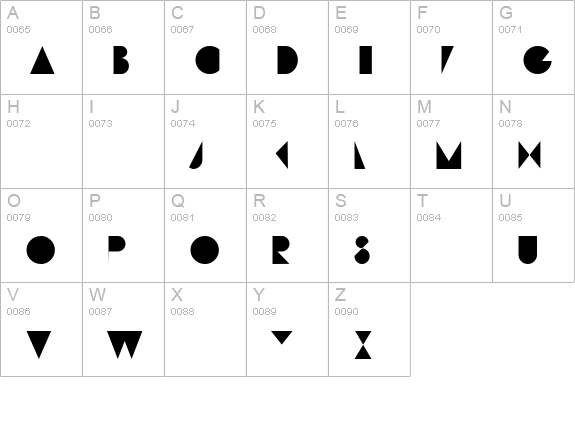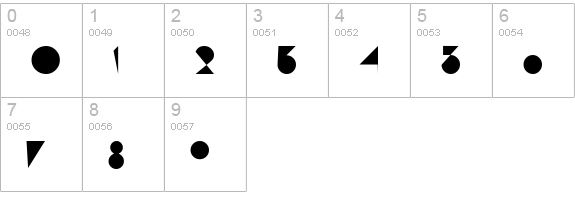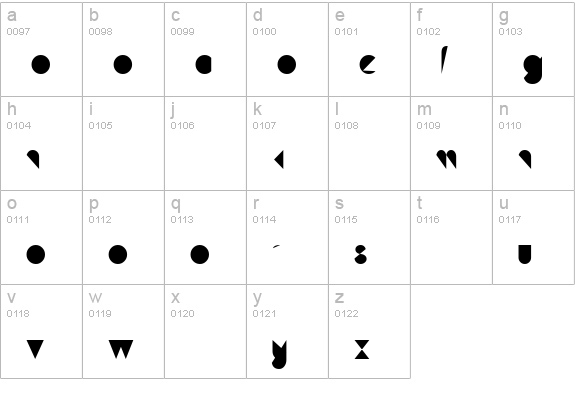
Hamburg Font Details
Introducing Hamburg Font, a beautifully crafted typeface that exudes elegance and sophistication. Designed with meticulous attention to detail, this font is the perfect choice for any project that requires a touch of class. Hamburg Font features a unique combination of sleek lines and subtle curves, creating a harmonious balance that is pleasing to the eye. Its versatile nature allows it to be used in a wide variety of applications, from branding and packaging to headlines and invitations. What sets Hamburg Font apart is not only its stunning design, but also its accessibility. It is freely available to download at FontsMarket.com, making it easily accessible to designers and creatives alike. This means that you can now incorporate this exquisite font into your projects without any hassle or cost. With its wide range of weights and styles, Hamburg Font offers endless possibilities for customization. Whether you want to create an elegant logo, a stylish poster, or a sophisticated website, this font has got you covered. So, why wait? Elevate your designs to new heights with the timeless beauty of Hamburg Font. Download it for free at FontsMarket.com and let your creativity soar.